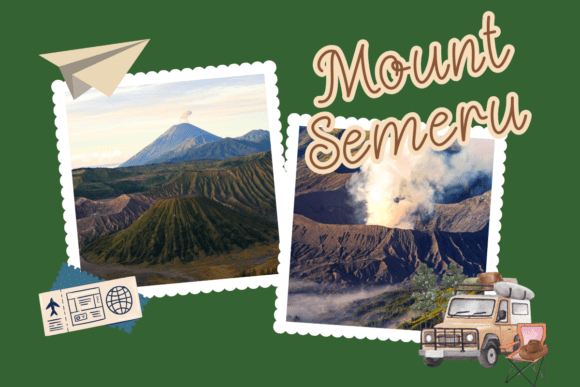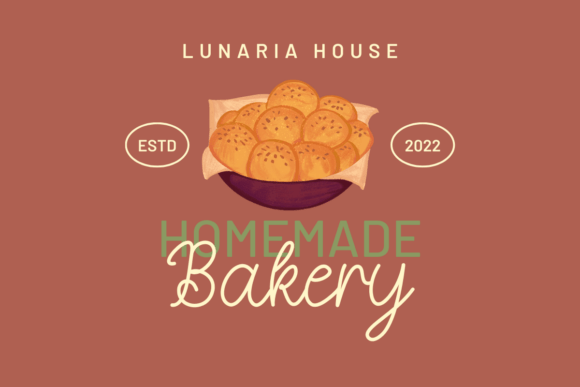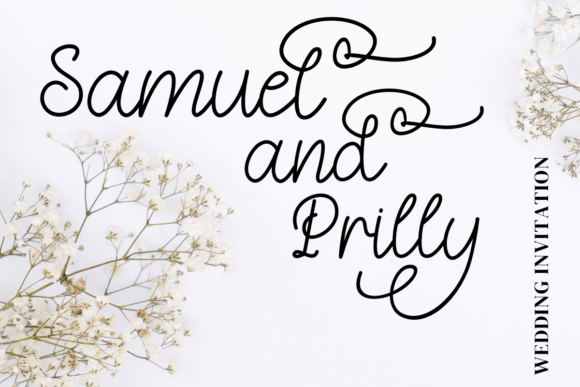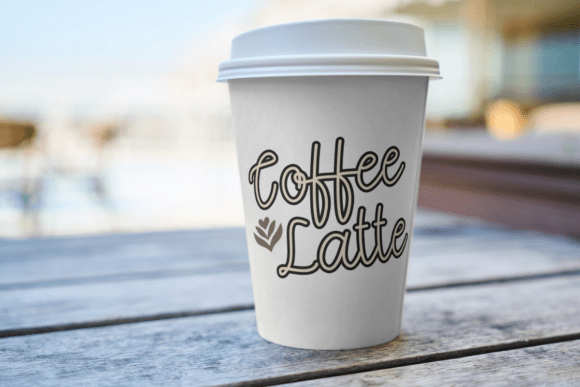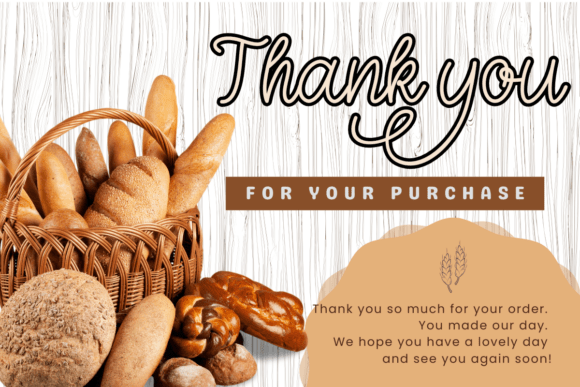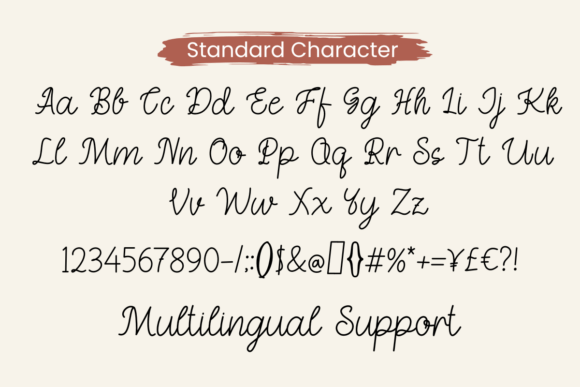
Introducing Backyard Font: The Perfect Handwriting Companion for Your Creative Projects
Are you tired of using the same old fonts for your creative projects? Do you want to add a personal touch to your designs and make them stand out from the crowd? Look no further than Backyard Font, a charming and playful handwriting font that’s perfect for bringing a natural, personal feel to your work.
Inspired by the Carefree Spirit of Handwritten Notes
Backyard Font is inspired by the carefree spirit of handwritten notes, making it ideal for a wide range of creative projects. Whether you’re designing greeting cards, logos, social media graphics, product packaging, or anything that needs a friendly and approachable feel, Backyard Font is the perfect choice. Its smooth, flowing strokes and casual style make it easy to read while still adding a unique personality to your work.
What Makes Backyard Font So Special?
So, what sets Backyard Font apart from other fonts out there? Here are just a few reasons why designers and crafters love working with this charming handwriting font:
- Unique Personality: Backyard Font has a distinct, handwriting feel that’s perfect for adding a personal touch to your designs. Its playful, carefree spirit makes it ideal for projects that need a friendly and approachable vibe.
- Ease of Use: Despite its unique personality, Backyard Font is incredibly easy to read. Its smooth, flowing strokes make it perfect for body text, headings, and titles.
- Versatility: Backyard Font is incredibly versatile, making it suitable for a wide range of creative projects. Whether you’re designing for print or digital, this font is sure to impress.
Backyard Font is a dream come true for designers and crafters who want to add a personal touch to their work. Here are just a few ways you can use this charming font in your creative projects:
- Greeting Cards: Add a personal touch to your greeting cards with Backyard Font. Its playful, handwriting feel makes it perfect for birthdays, holidays, and special occasions.
- Logos and Branding: Use Backyard Font to create a unique and memorable logo for your business or brand. Its friendly and approachable feel makes it perfect for companies that want to stand out from the crowd.
- Social Media Graphics: Add some personality to your social media graphics with Backyard Font. Its smooth, flowing strokes make it perfect for creating engaging and shareable content.
- Product Packaging: Use Backyard Font to add a personal touch to your product packaging. Its playful, handwriting feel makes it perfect for brands that want to stand out on store shelves.
Tips for Using Backyard Font
Here are a few tips for getting the most out of Backyard Font:
- Experiment with Colors: Backyard Font looks great in a variety of colors, so don’t be afraid to experiment and find the perfect hue for your project.
- Mix and Match: Combine Backyard Font with other fonts to create a unique and eye-catching design.
- Play with Size: Backyard Font looks great in a range of sizes, from small body text to large headings.
| Font Name | Backyard Font |
| Author | Perkasya Akram |
Backyard Font is a charming and playful handwriting font that’s perfect for adding a natural, personal touch to your creative projects. With its smooth, flowing strokes and casual style, this font is easy to read and adds a unique personality to your work. Whether you’re a designer or crafter, Backyard Font is a must-have font that’s sure to inspire your creativity and take your projects to the next level.